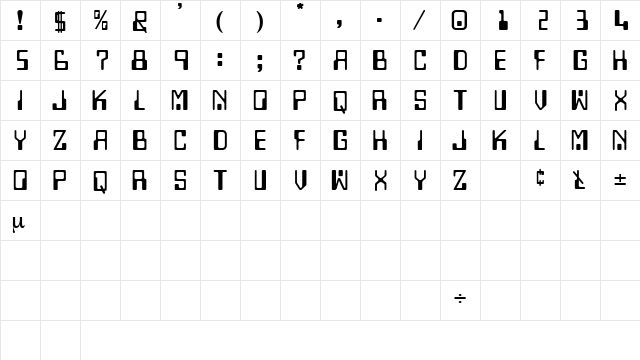
TechnoDisplayCapsSSK Regular Font Preview
TechnoDisplayCapsSSK Regular
Design Context for TechnoDisplayCapsSSK Typeface
TechnoDisplayCapsSSK channels digital-age aesthetics through its sharp, structured letterforms — ideal for brands that want to signal innovation.
Pro Tip: Use TechnoDisplayCapsSSK in combination with a neutral sans for body text. Let it define the brand voice in headlines while keeping reading comfortable elsewhere.